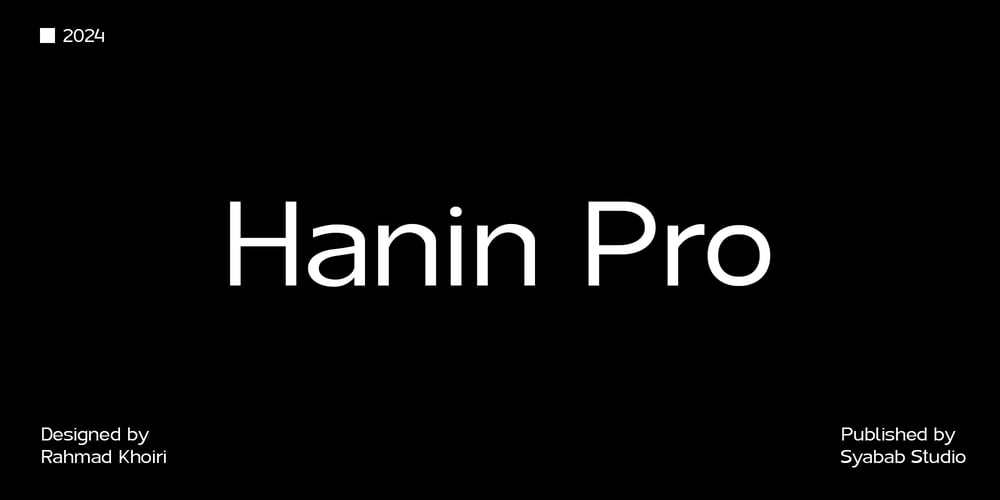
Hanin Pro Font Family was designed by Rahmad Khoiri and published by Syabab Studio. Hanin Pro contains 9 styles and family package options. With Hanin Pro – you will take your design to the next level with the perfect balance between elegance and readability. Carefully crafted to meet both professional and creative needs, this font provides a stunning array of typographic styles for all your design projects.Key Features: Style Diversity: With 9 different weights, Hanin Pro allows you to create with boundless flexibility. From light and delicate to bold and striking, each weight is precision-designed to deliver unparalleled visual impact. Optimal Readability: This font is designed with a focus on readability, ensuring your message is conveyed clearly and effectively, even at small sizes. This makes Hanin Pro the ideal choice for various media, from print to web design. Universal Compatibility: Without sacrificing elegance, Hanin Pro complements a wide range of design styles, from minimalist to bold. With its versatile elegance, this font is perfect for logos, banners, posters, websites, and more. Highest Quality: Every letter in Hanin Pro is crafted with exceptional finesse, making it the top choice for design professionals who value uncompromising quality. Language Support: This font supports a large number of languages, ensuring that your projects can reach a global audience without barriers. Why Choose Hanin Pro – Sans 9 Weight Font?Hanin Pro offers a unique combination of aesthetic beauty and exceptional functionality. From logo design to magazine layouts, this font elevates your creative capabilities to new heights. With a respected reputation and unmatched quality, Hanin Pro is a smart investment for your design projects.